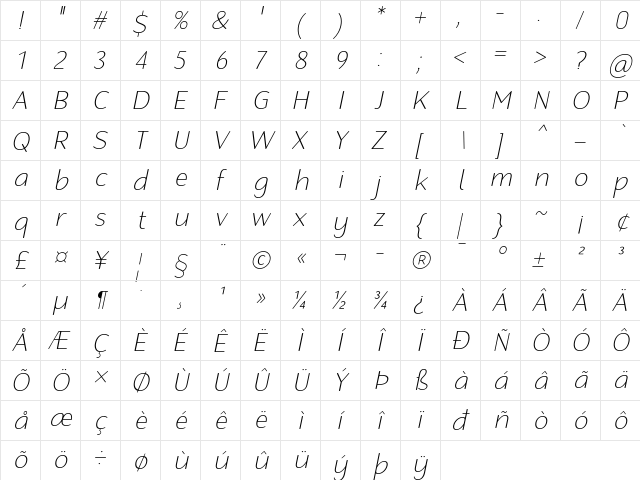
Robaga Rounded Thin Italic Font Preview
| Foundry | 7NTypes |
| Designer | Situjuh Nazara |
Design Context for Robaga Rounded Thin Typeface
Robaga Rounded Thin uses gentle rounded endings to create a warm, inviting typographic personality — less corporate than geometric sans, more refined than playful display fonts. Its italic angle brings a sense of urgency and motion to the letterforms. The delicate stroke weight brings airiness and refinement to layouts.
Well-suited to UI design, mobile interfaces, and any brand that wants approachability without sacrificing clarity.
Font Pairing: Pairs well with a rounded or humanist sans for body copy, maintaining the friendly tone without relying on Robaga Rounded Thin to carry extended reading.
Pro Tip: Use Robaga Rounded Thin for UI elements, app interfaces, and anywhere a friendly, approachable tone needs to be maintained without sacrificing clarity.